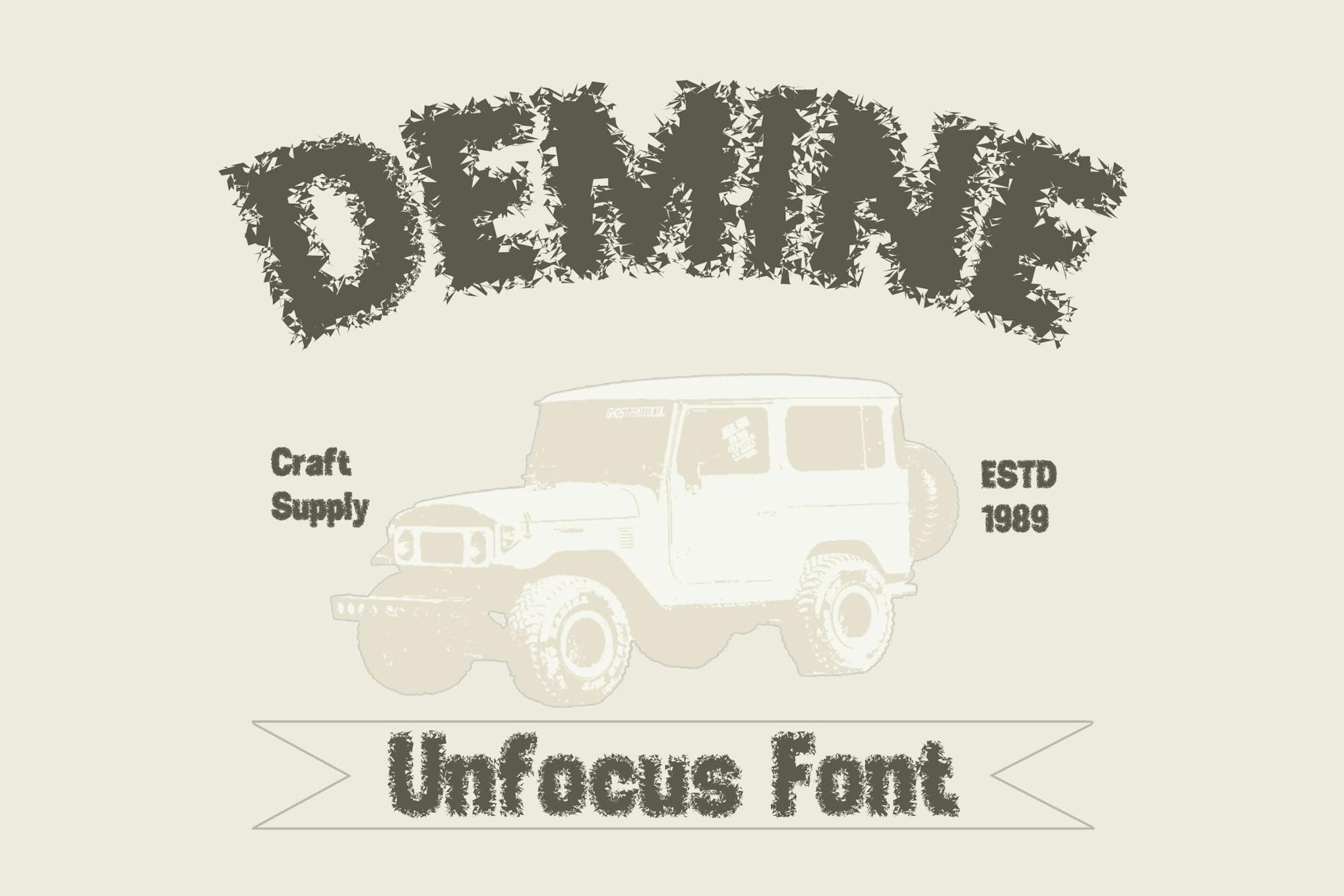
Demine Unfocus Font
Demine Unfocus Font explores underground mining heritage museums, geological expedition branding, mineral extraction company identities, earth science publications, mining equipment packaging, geological survey materials, cave exploration promotions, underground adventure tourism, mineral collector catalogs, geological conference graphics, mining history documentaries, and earth sciences marketing where deep excavation themes and atmospheric unfocus create profound underground experiences.
This profound typeface generates excitement through its masterful evocation of deep excavation and mineral discovery that creates typography suggesting the mysterious depths beneath the earth's surface. Demine Unfocus Font captures the essence of underground exploration with its softly blurred letterforms that mirror the atmospheric conditions found in deep mines and the hazy visibility encountered during subterranean adventures. The font's sophisticated design approach incorporates elements that suggest depth, discovery, and the ancient geological processes that create precious minerals and hidden treasures. Its distinctive character reflects the patience, perseverance, and scientific curiosity that define authentic geological exploration and mining heritage.
The Demine Unfocus Font family encompasses multiple subterranean variations including Regular, Light, Medium, Bold, and Excavated versions, each maintaining the font's characteristic underground authenticity while offering different levels of geological impact. The collection features mining-inspired blur effects, underground atmospheric treatments, and mineral textures that enhance its excavation aesthetic. Additional elements include geological symbols, mining equipment ornaments, underground decorative borders, and mineral-inspired flourishes that reinforce the font's connection to deep earth exploration and geological discovery.
Geological organizations and mining heritage institutions consistently select Demine Unfocus Font Free Download for projects requiring typography that communicates underground expertise and geological authenticity. This remarkable typeface excels in applications where establishing scientific credibility and conveying deep earth knowledge are essential for educational and industrial success. The font's mining-inspired qualities make it particularly effective for geological surveys, mining companies, and earth science organizations targeting audiences who appreciate underground exploration and mineral discovery.
Whether you're designing geological research materials, creating mining heritage exhibitions, developing earth science educational content, or crafting underground exploration campaigns, Demine Unfocus Font delivers unmatched subterranean authenticity. Its ability to convey depth, geological knowledge, and mining heritage makes it invaluable for earth scientists and mining professionals seeking typography that genuinely reflects the mystery and importance of underground exploration. The font's excavated presence ensures your designs will communicate the scientific rigor and underground expertise that define exceptional geological communications and mining industry experiences.